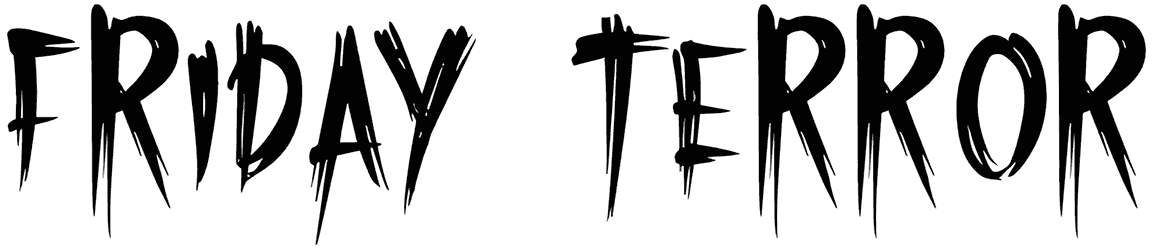
Friday Terror Font
Friday Terror works very well in all projects that sell excitement and seek to surprise the audience. This horror font can create tension and discomfort, and reflect the feeling of fear and terror well.
On the other hand, the handwritten nature of this brush font has made it closer to the touch of human emotions and conveys a sense of apprehension to the depths of the audience’s heart. You can use Friday Terror without lowercase letters in computer games and crime books.